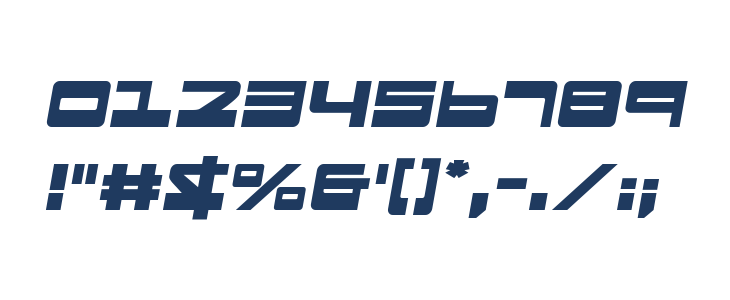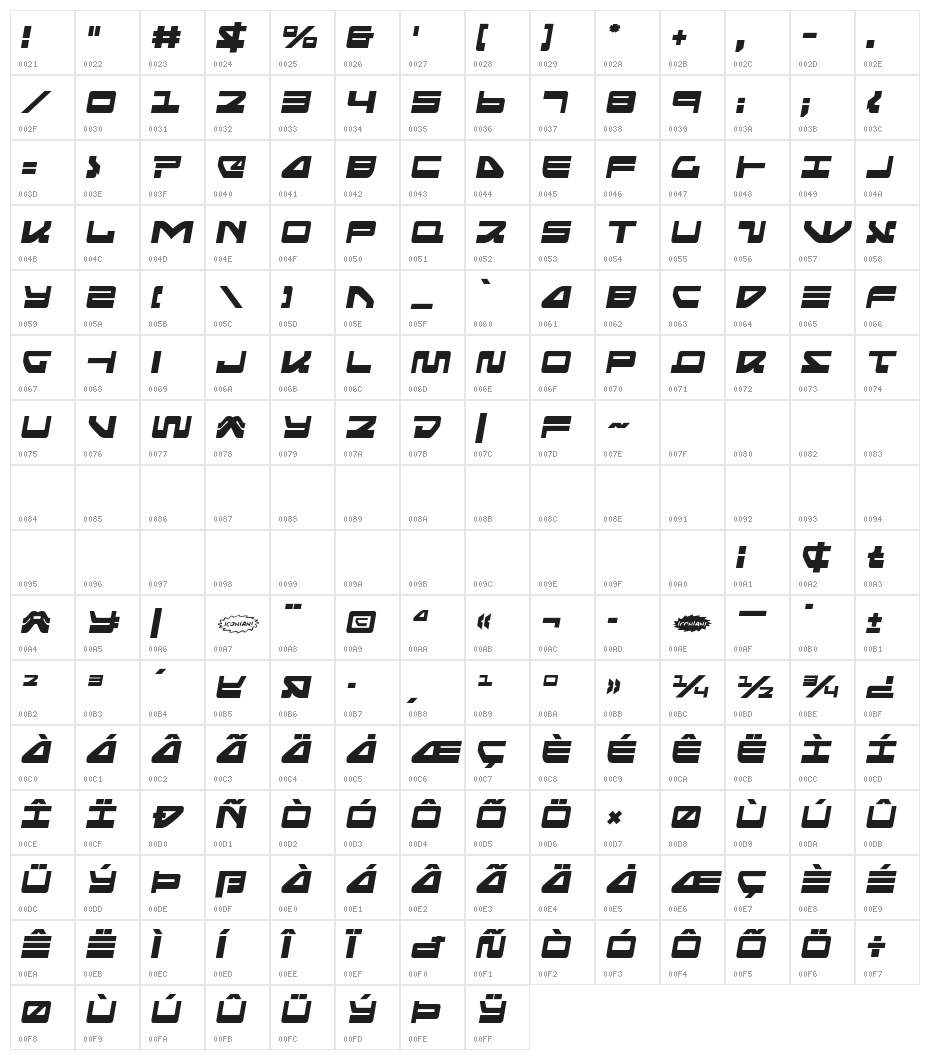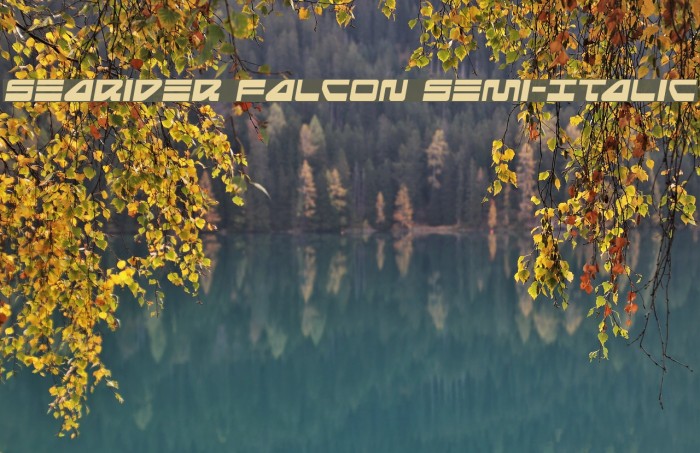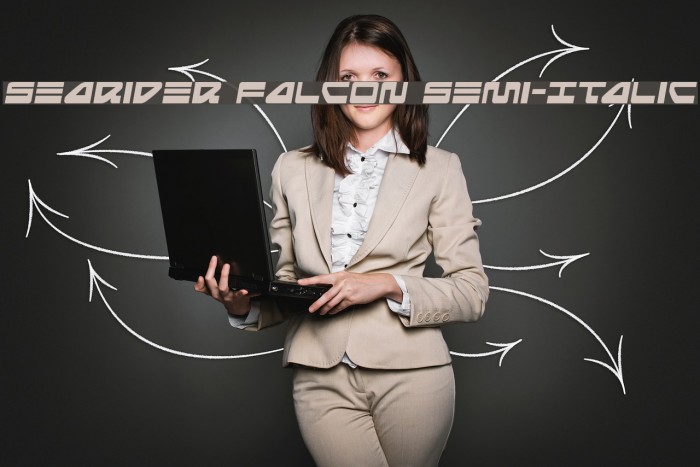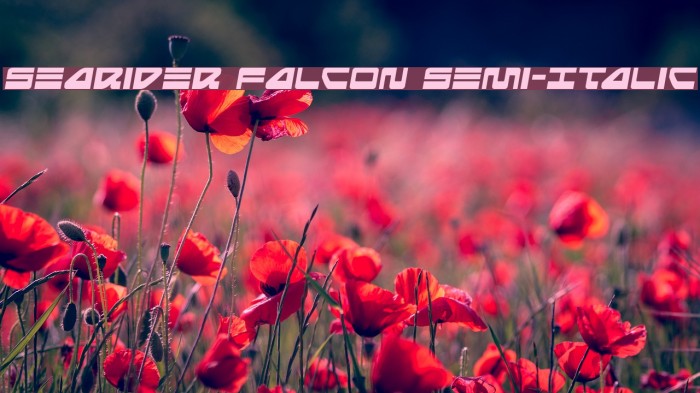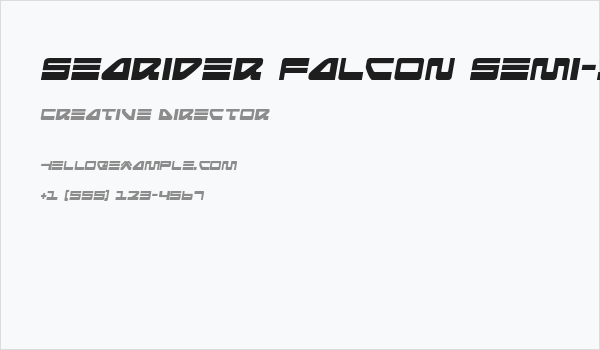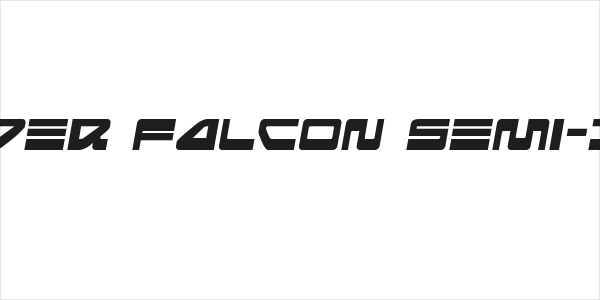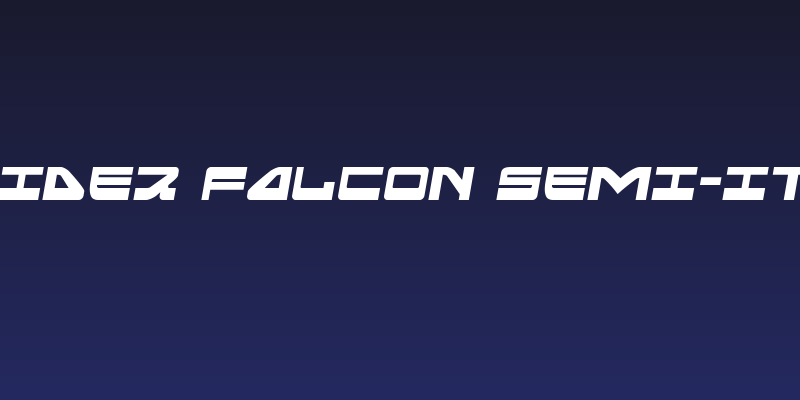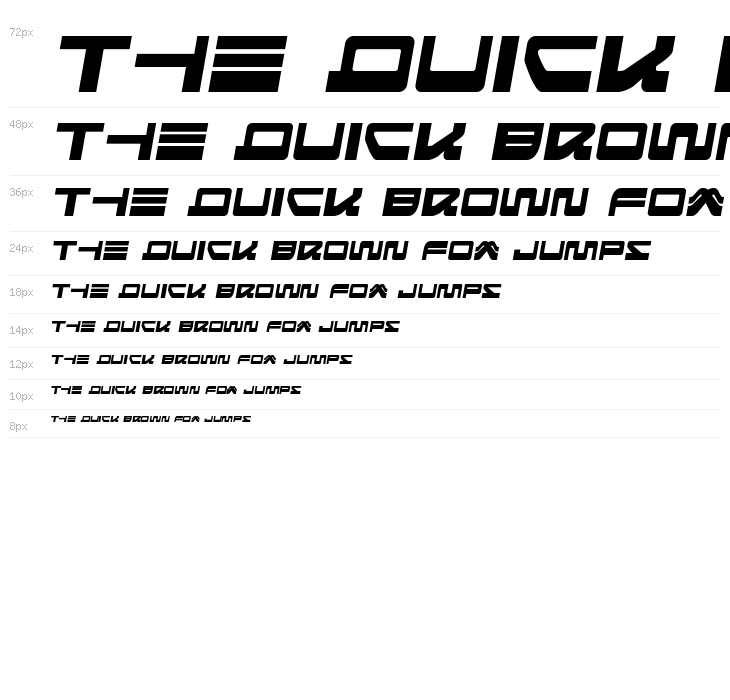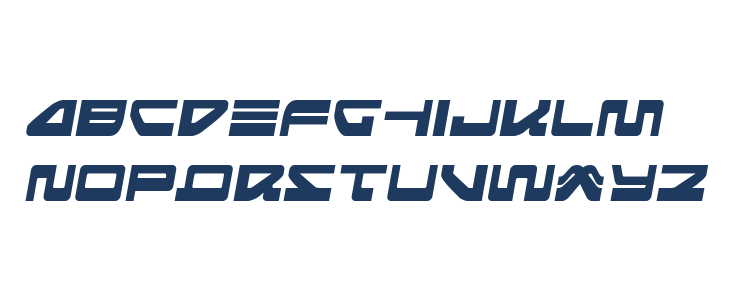
Searider Falcon Semi-Italic Font
Searider Falcon Semi-Italic Description
This font exhibits a bold and futuristic design with angular, geometric shapes that convey a sense of speed and modernity. The characters are slightly italicized, enhancing the dynamic appearance. The uppercase and lowercase letters maintain a consistent style, with sharp edges and a uniform thickness that adds to the boldness. The numerals and special characters follow the same design principles, ensuring a cohesive look across all elements. This font is ideal for projects that require a strong, impactful visual presence.